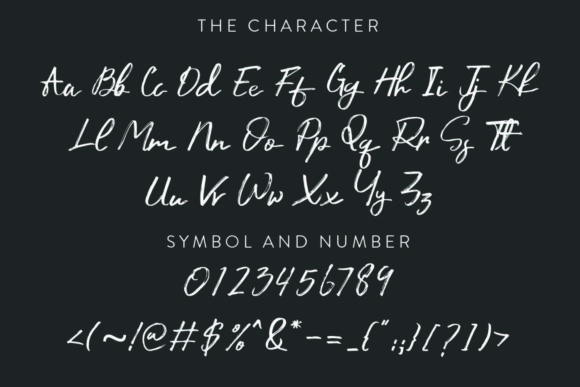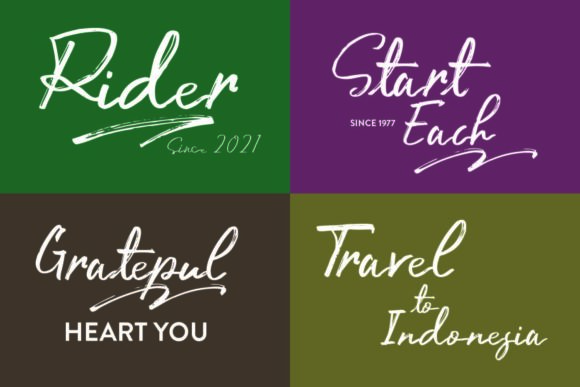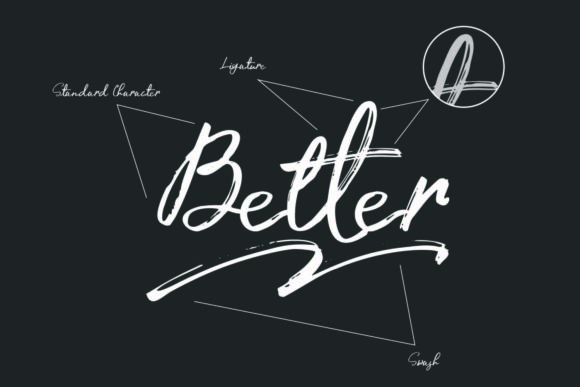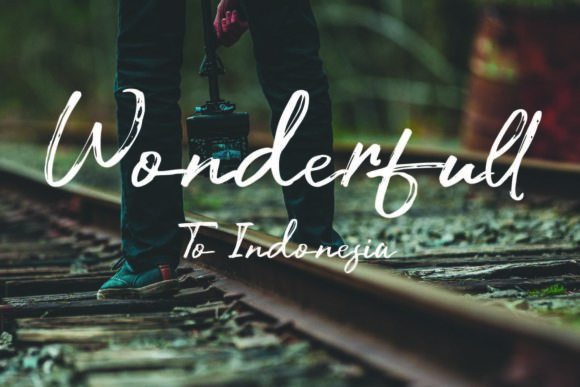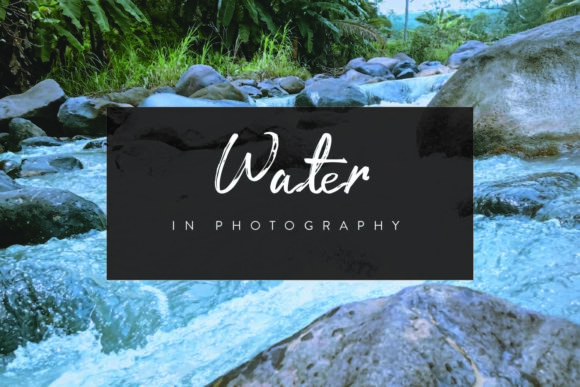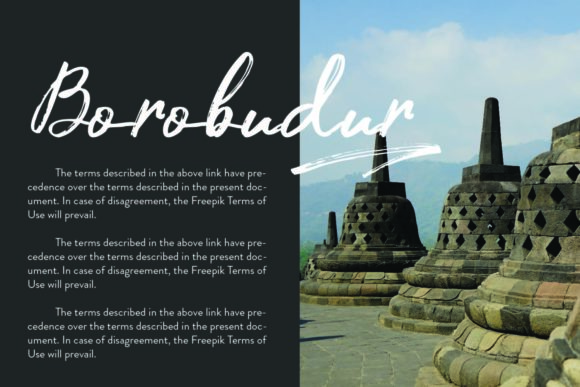
Bucharest Font: Elevate Your Designs with a Lovely Brushed Handwritten Style
Are you looking for a font that adds a touch of elegance and personality to your designs? Look no further than the Bucharest font, a stunning brushed handwritten font that is perfect for a variety of creative projects. In this article, we’ll dive into the features and benefits of the Bucharest font, and explore how you can use it to take your designs to the next level.
What is the Bucharest Font?
The Bucharest font is a beautiful, handwritten font that boasts a unique brushed style. Its elegant and refined appearance makes it an ideal choice for designers and crafters who want to add a personal touch to their work. Whether you’re creating wedding invitations, thank you cards, greeting cards, logos, or any other type of design that requires a personalized style, the Bucharest font is sure to impress.
Key Features of the Bucharest Font
So, what makes the Bucharest font so special? Here are some of its key features:
- Brushed Handwritten Style: The Bucharest font features a unique brushed handwritten style that gives it a personal and elegant feel.
- Highly Versatile: This font is perfect for a wide range of designs, from wedding invitations and greeting cards to logos and more.
- Elegant and Refined: The Bucharest font has an sophisticated and refined appearance that is sure to elevate your designs.
- Easy to Read: Despite its elegant style, the Bucharest font is highly legible, making it perfect for designs that require a clear and easy-to-read text.
Uses for the Bucharest Font
The Bucharest font is an incredibly versatile font that can be used for a wide range of designs. Here are some ideas to get you started:
- Wedding Invitations: Add a touch of elegance and romance to your wedding invitations with the Bucharest font.
- Thank You Cards: Show your appreciation with beautifully designed thank you cards featuring the Bucharest font.
- Greeting Cards: Create stunning greeting cards for special occasions like birthdays, anniversaries, and holidays.
- Logos: Use the Bucharest font to create a unique and memorable logo for your business or brand.
- Social Media Graphics: Add a personal touch to your social media graphics, such as Facebook posts, Instagram stories, and more.
Tips for Using the Bucharest Font
To get the most out of the Bucharest font, here are some tips to keep in mind:
- Pair it with Other Fonts: Experiment with pairing the Bucharest font with other fonts to create a unique and visually appealing design.
- Use it for Headings: The Bucharest font is perfect for headings and titles, so use it to add a touch of elegance to your design.
- Experiment with Colors: Try out different colors and color combinations to see what works best with the Bucharest font.
In conclusion, the Bucharest font is a stunning brushed handwritten font that is perfect for designers and crafters who want to add a personal touch to their work. With its elegant and refined appearance, high versatility, and ease of use, this font is sure to elevate your designs and take them to the next level. So why wait? Download the Bucharest font today and start creating beautiful, personalized designs that will leave a lasting impression.